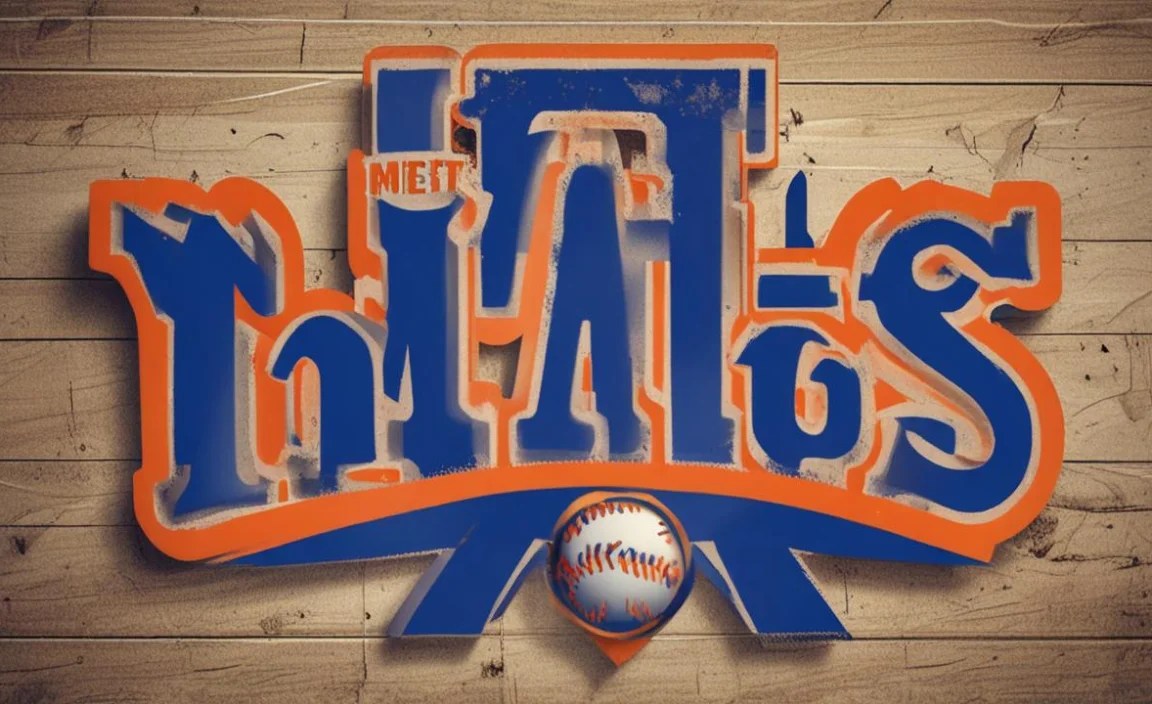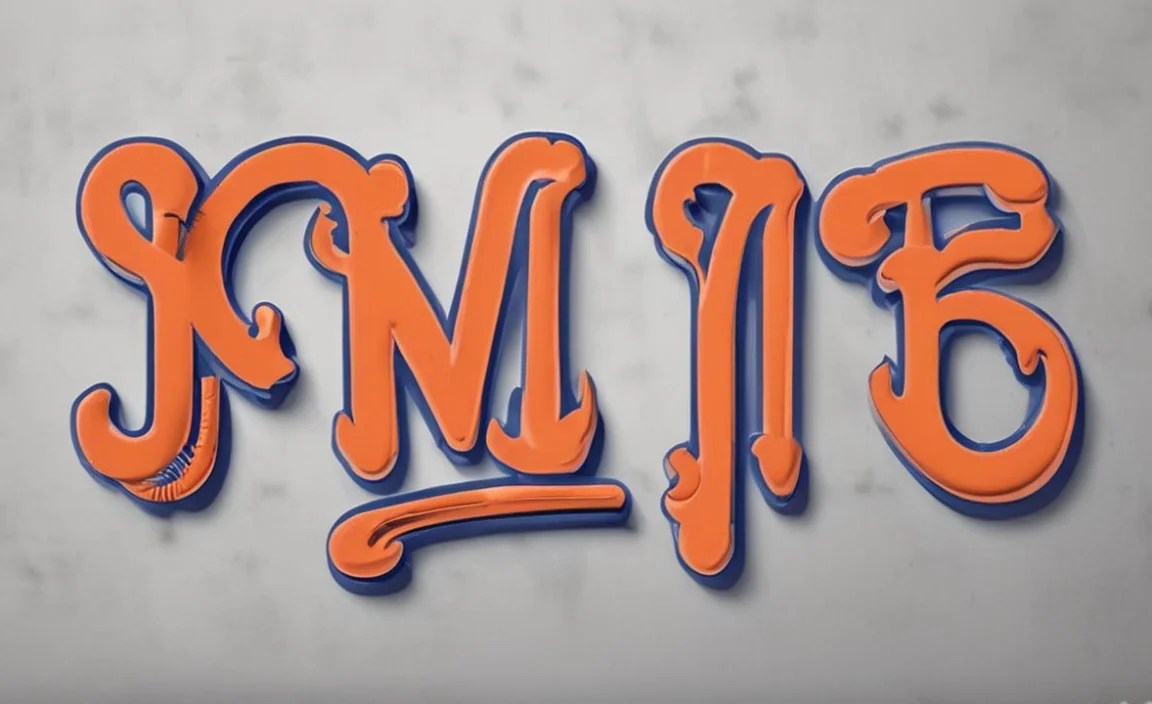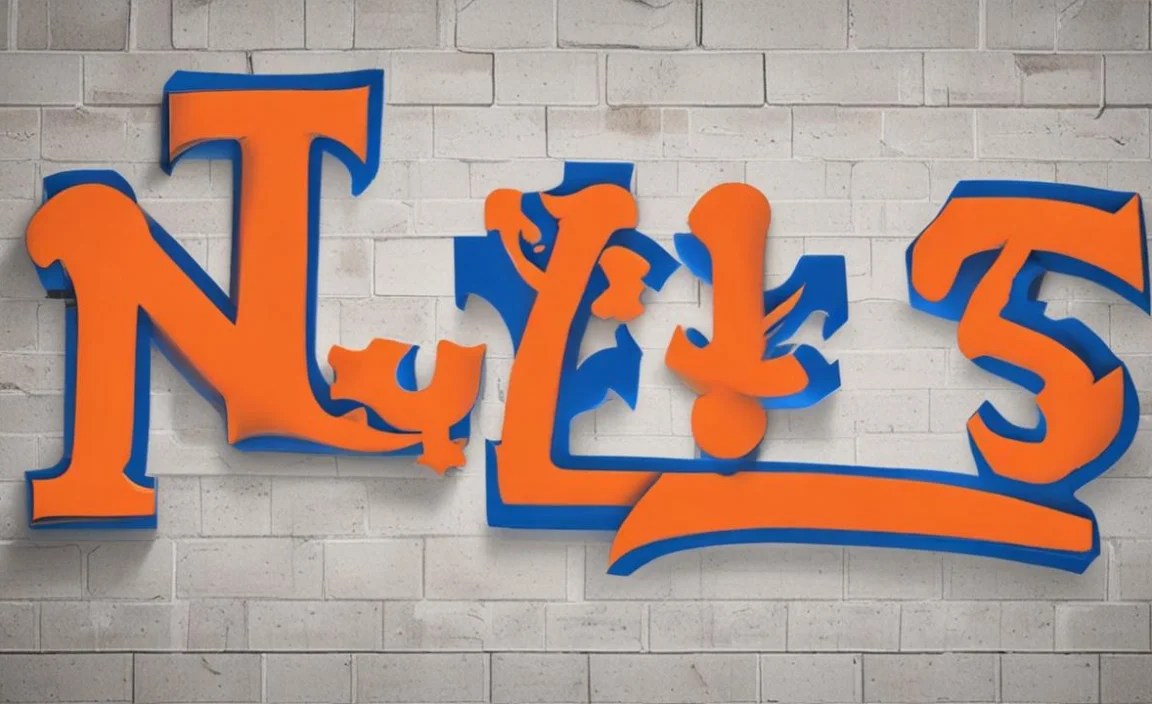
The New York Mets Font is a powerful, bold typeface widely recognized for its connection to the New York Mets baseball team. Featuring in their logo, the font reflects the Mets’ bold identity and is a key component in the team’s branding, seen on everything from the iconic Mets jersey to promotional materials at Citi Field.
The font’s design captures the essence of the city, incorporating elements of the Queensboro Bridge and the dynamic energy of New York City.
- Font Family: The New York Mets Font family includes bold and italicized styles used in various applications, such as home jerseys, road jerseys, and alternate jerseys.
- Designer: The font is custom-made for the team’s branding, with similarities to fonts like Spills Base by Comi Craft and Buffalo Nickel by Nick Curtis.
- On New York Mets team jerseys (home, away, and alternate jerseys).
- The Mets logo on various promotional materials, merchandise, and official branding.
- On Citi Field signage and related marketing materials.
- On baseball uniforms worn by players like Pete Alonso, Francisco Lindor, and Wilmer Font.
- In merchandise such as Mets caps and apparel for fans.
- Featured prominently on Mets color designs, including special editions for Hispanic Heritage Night and holiday-themed jerseys.
- On the iconic Queensboro Bridge graphic used in the Mets branding.
If you’re looking for alternatives with a similar style to the New York Mets Font, consider these options:
- Wilmer Font
- Hessian
- Lynchburg
- Western Adventure
These fonts offer a similar Tuscan aesthetic, perfect for sports graphics or designs inspired by the Miracle Mets, Juan Soto, or Pete Alonso.
- Mets Font + Gotham Bold: Gotham Bold complements the New York Mets font perfectly, adding a clean, modern feel to the bold style of the Mets’ letters.
- Mets Font + Futura: For a more sleek and geometric look, pairing the Mets Font with Futura brings in modernism without losing the bold character of the original font.
- Mets Font + Times New Roman: For readability in longer-form text, Times New Roman can provide a classic, well-balanced contrast.
The New York Mets font is more than just a set of letters; it’s an iconic part of the Mets’ identity that ties the team to the city of New York. From the historic Brooklyn Dodgers and New York Giants influences to modern-day designs, the Mets’ logo and font represent the rich history and excitement of Major League Baseball.
Whether you’re a Mets fan or a designer looking to create baseball-related content, understanding the evolution and impact of this unique font is key to capturing the essence of the Mets’ iconic branding.
Blue and orange are the official colors of New York City, symbolizing the team’s connection to the city and its vibrant energy.